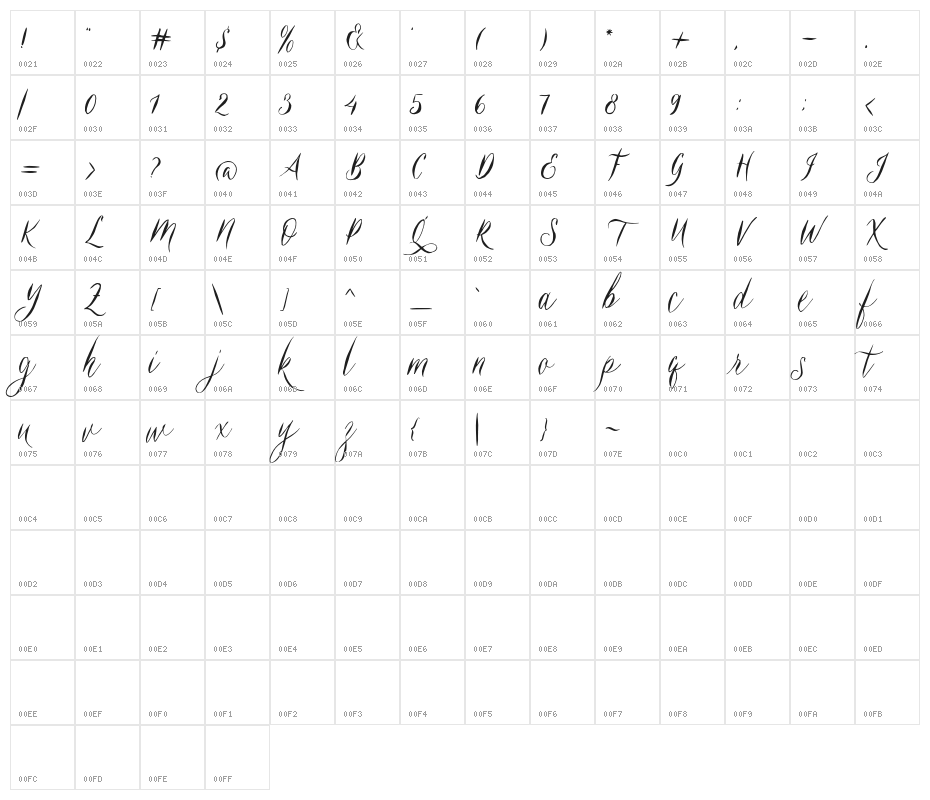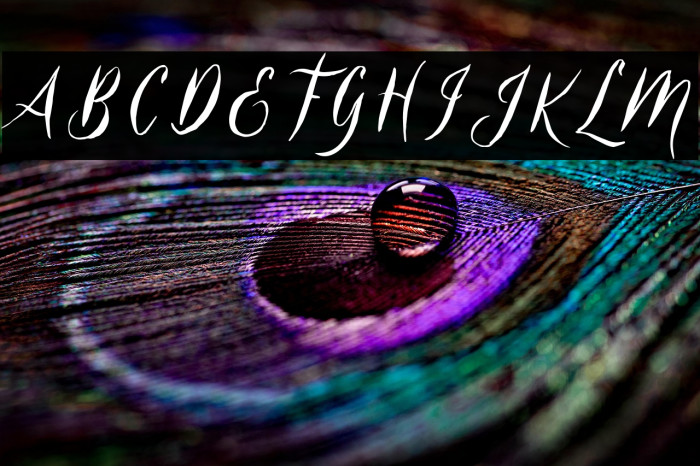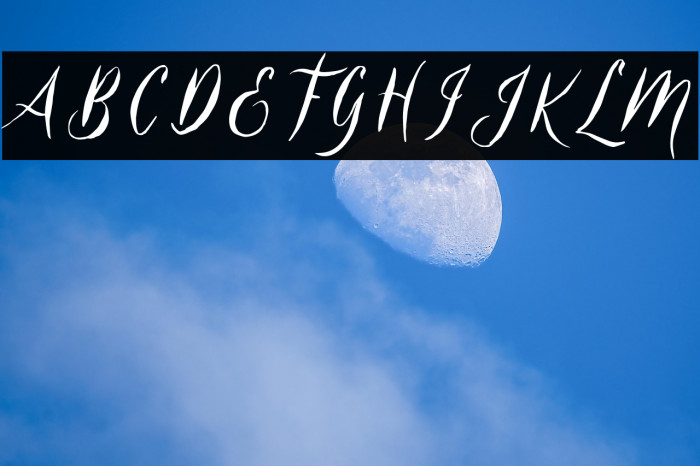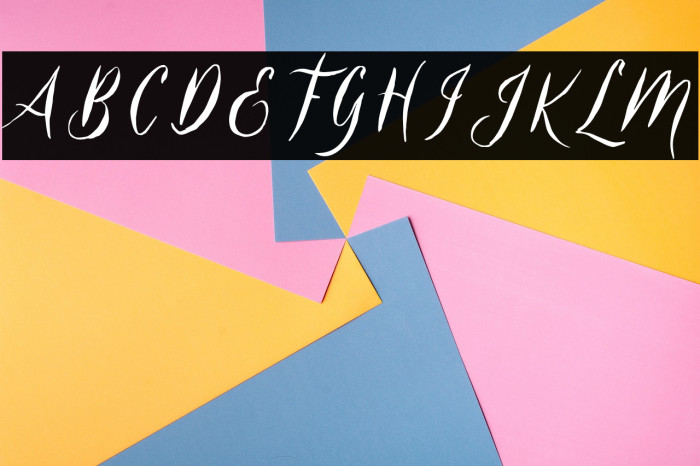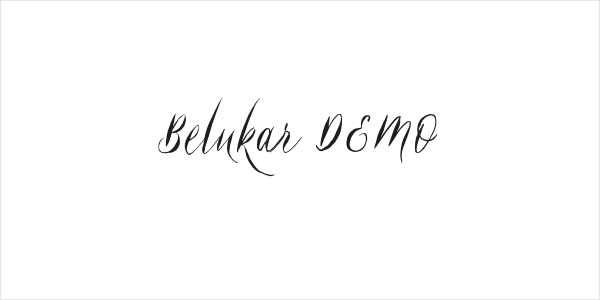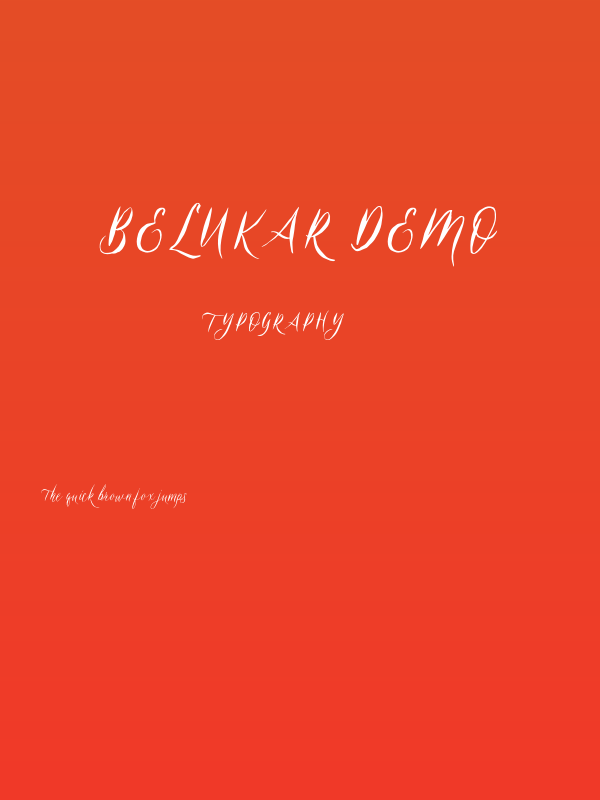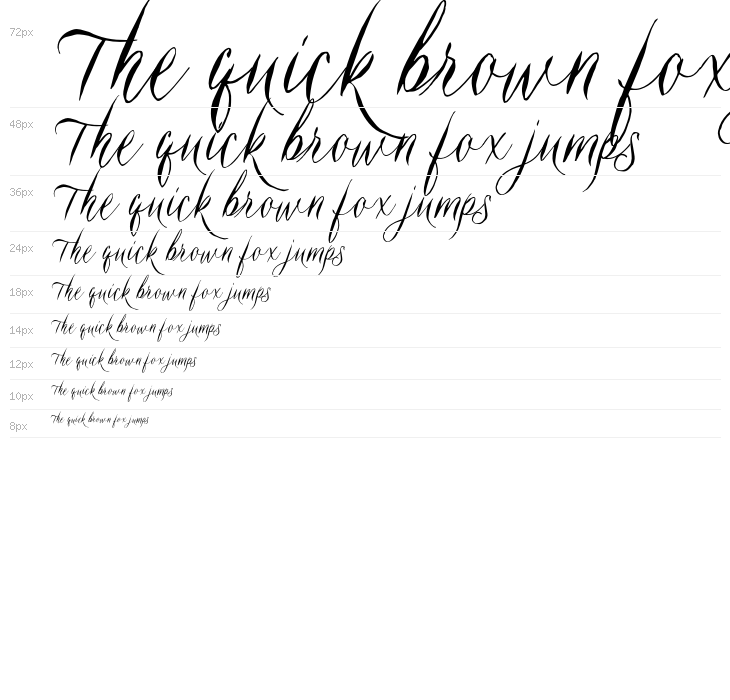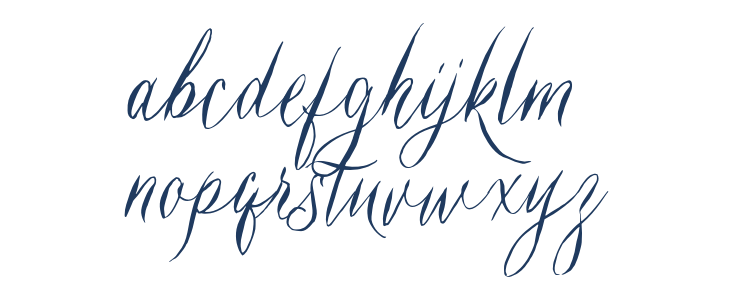
Belukar DEMO Font
Belukar DEMO Description
This font exudes a dynamic and expressive style, characterized by its flowing, cursive script that mimics the fluidity of handwriting. The letters are elegantly elongated with sweeping curves and sharp, pointed terminals, giving it a sense of movement and grace. The uppercase letters stand tall with a slight slant, while the lowercase letters maintain a consistent rhythm, enhancing readability despite their artistic flair. The numbers and special characters follow the same stylistic cues, ensuring a cohesive look across all elements. This font is perfect for projects that require a touch of sophistication and personality.